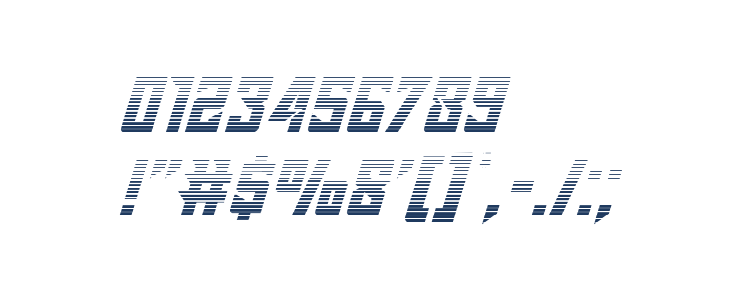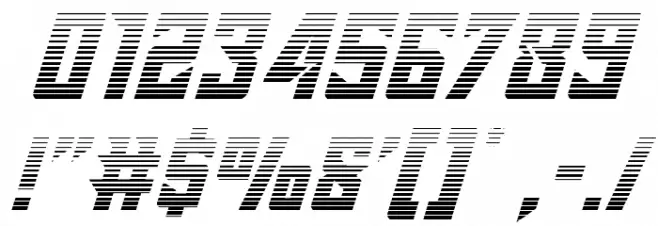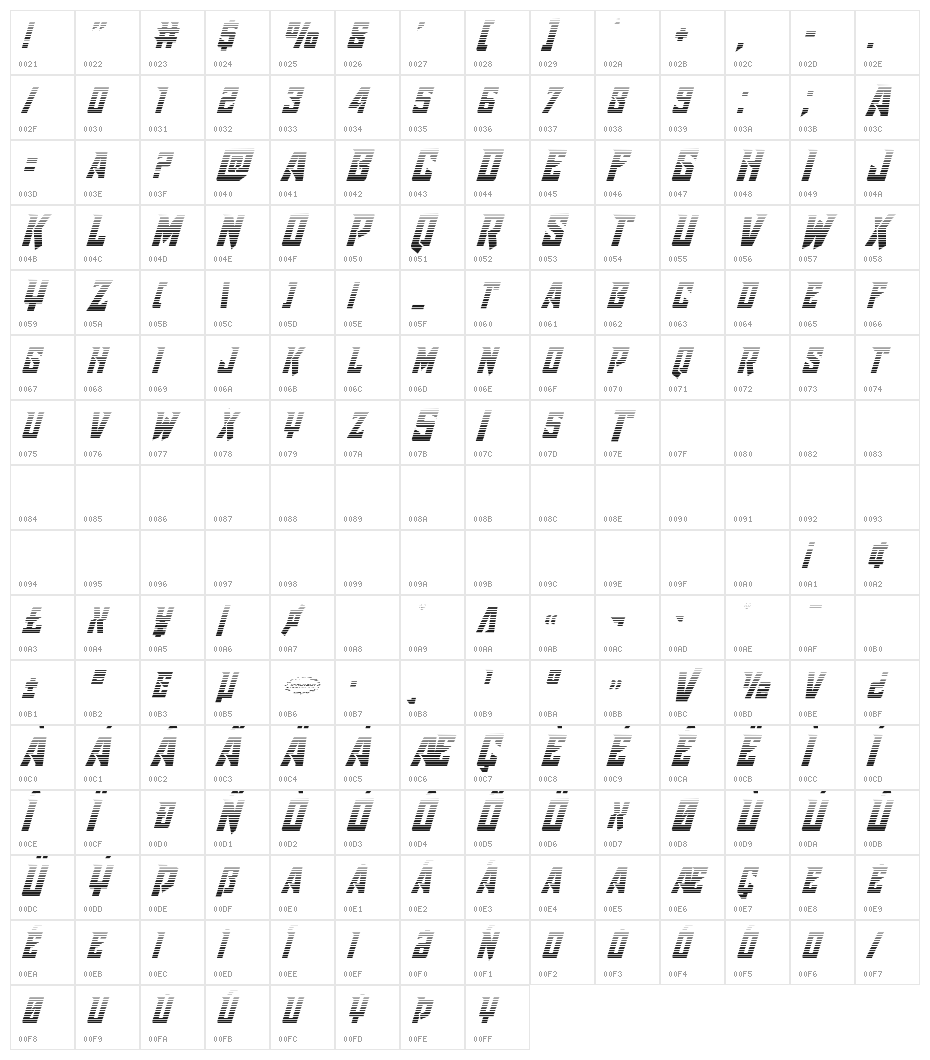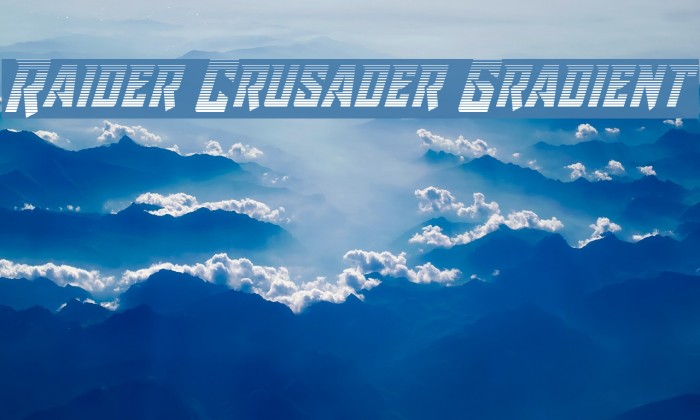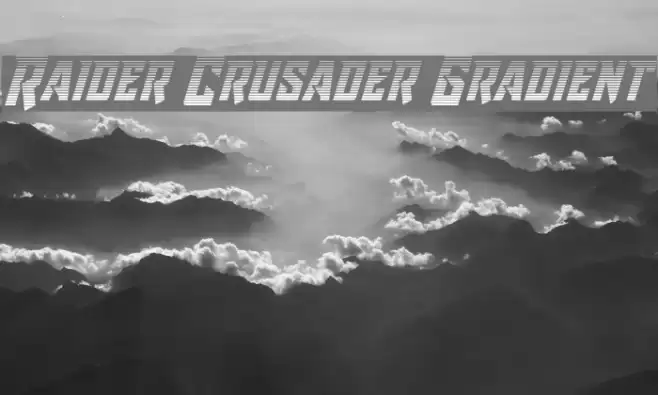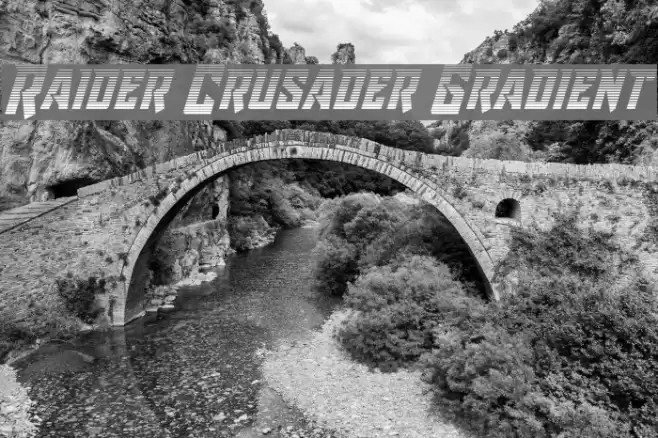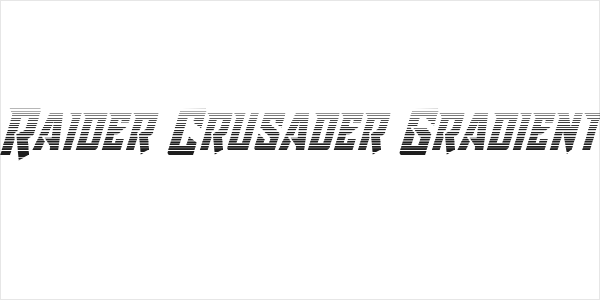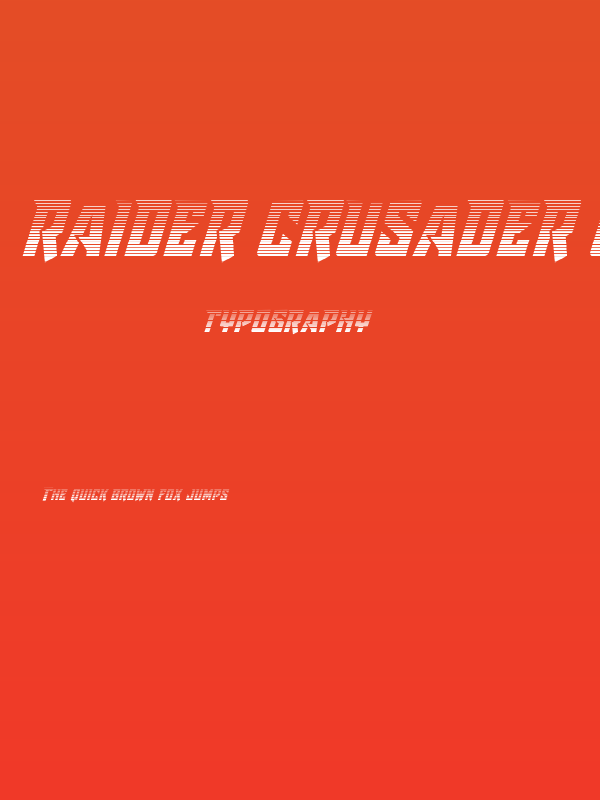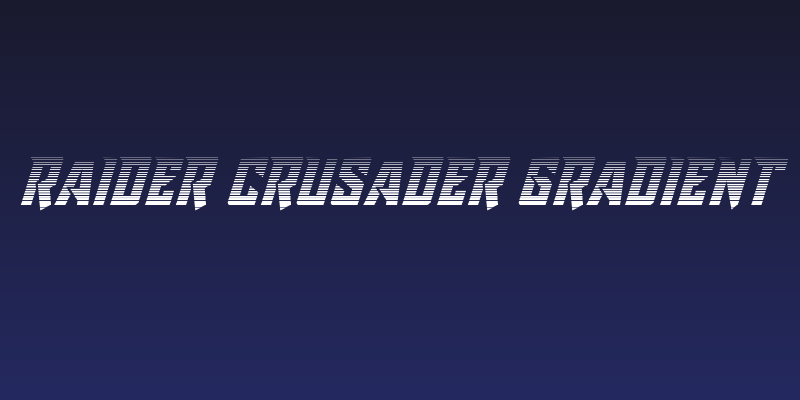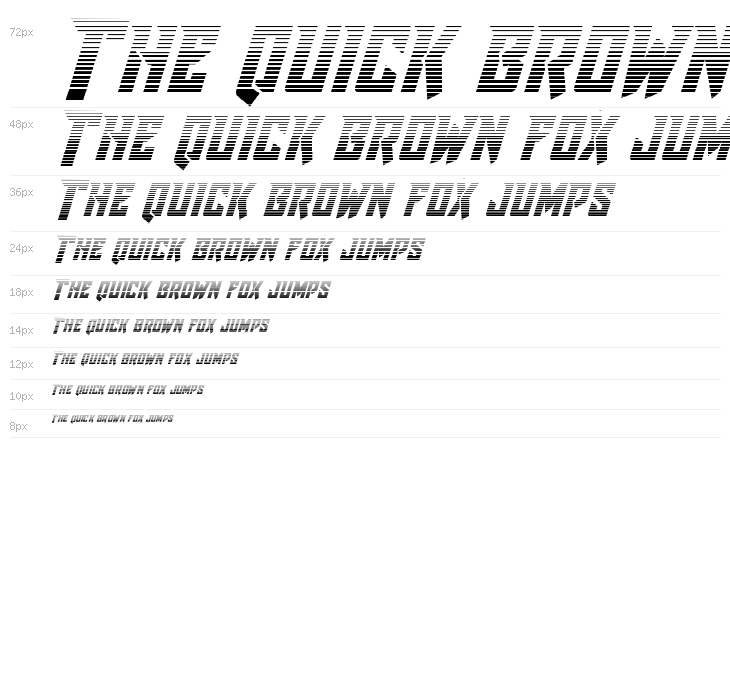
Raider Crusader Gradient Font
Raider Crusader Gradient Description
This font features a bold and dynamic design with a distinct gradient effect created by horizontal lines across each character. The uppercase letters are angular and robust, giving a sense of movement and energy. The lowercase letters maintain the same stylistic elements, ensuring consistency throughout the typeface. Numbers and special characters are designed to match the boldness and unique style of the alphabet, making this font suitable for attention-grabbing designs. The overall appearance is modern and edgy, perfect for projects that require a strong visual impact.